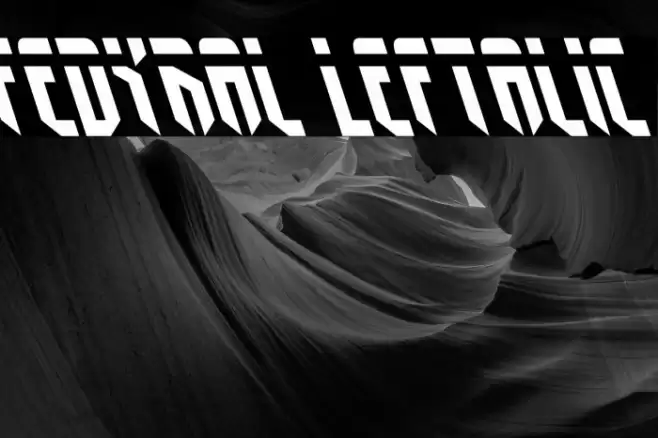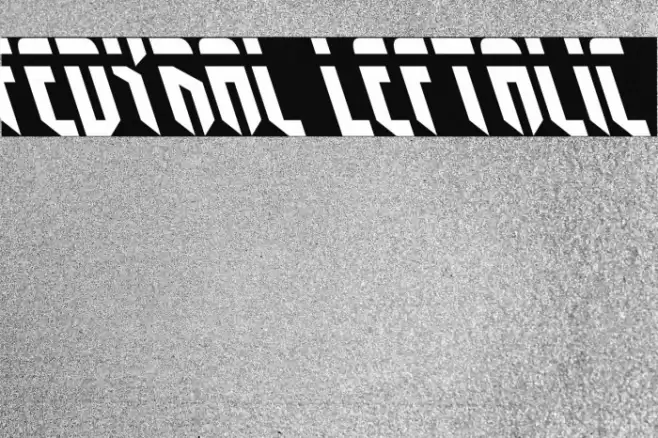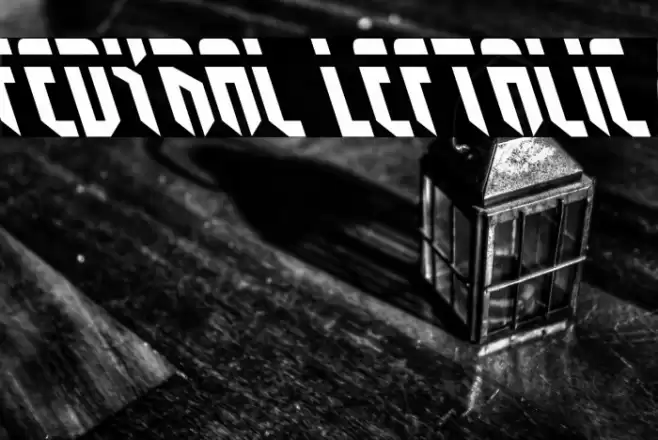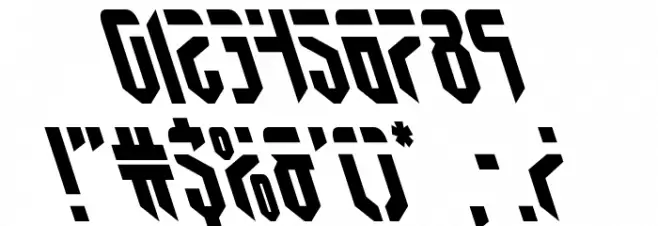
Fedyral Leftalic Font
Fedyral Leftalic Description
This font features a bold, angular design with a futuristic and geometric aesthetic. The characters are sharply defined, with a distinct slant to the left, giving it a dynamic and forward-moving appearance. The uppercase and lowercase letters maintain a consistent style, with thick strokes and sharp edges. The numbers and special characters follow the same angular theme, ensuring uniformity across all glyphs. This font's unique style makes it stand out, ideal for projects that require a modern and edgy look.
A bold, angular, and futuristic font with a leftward slant from Uncategorized fonts.
- Proposed Projects: Ideal for sci-fi themed designs, video game titles, tech branding, and modern posters.